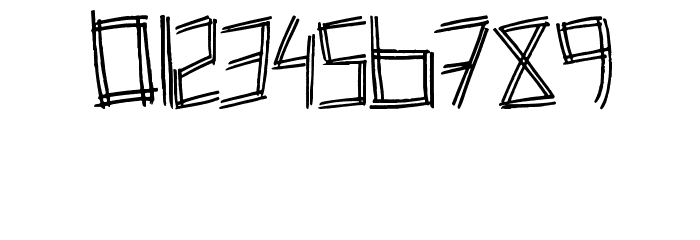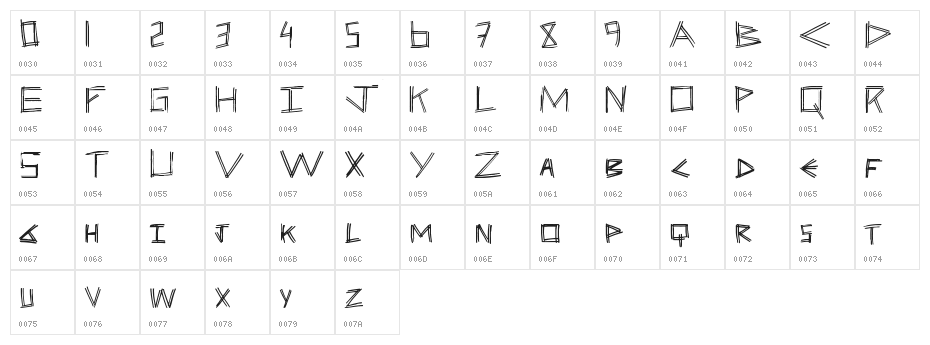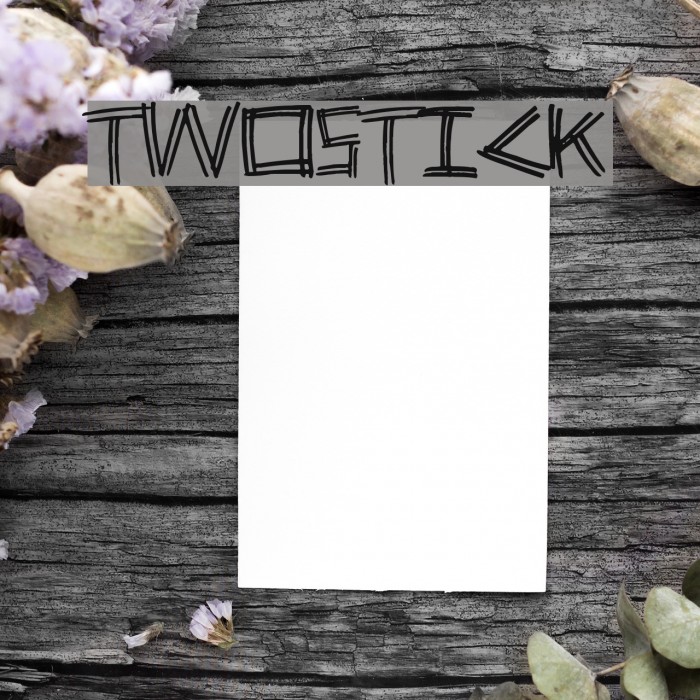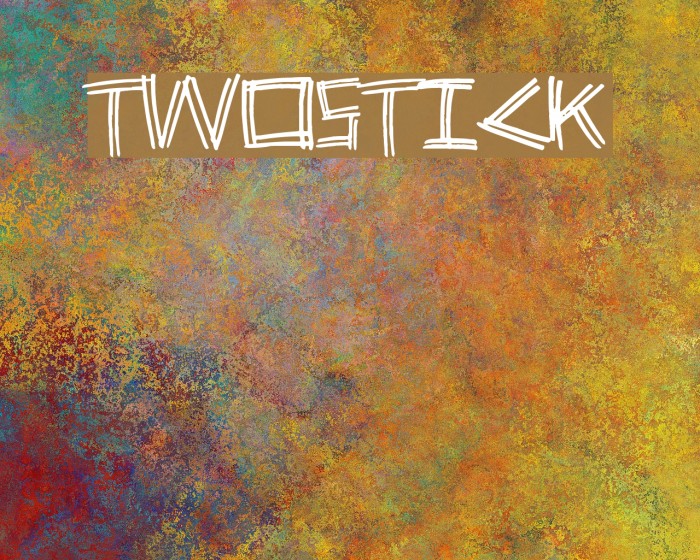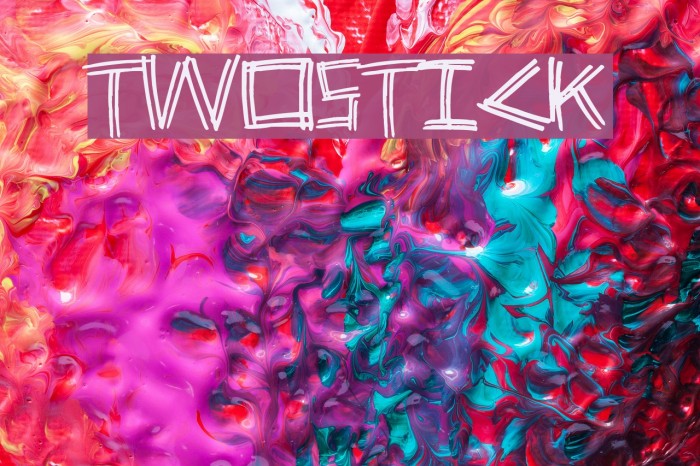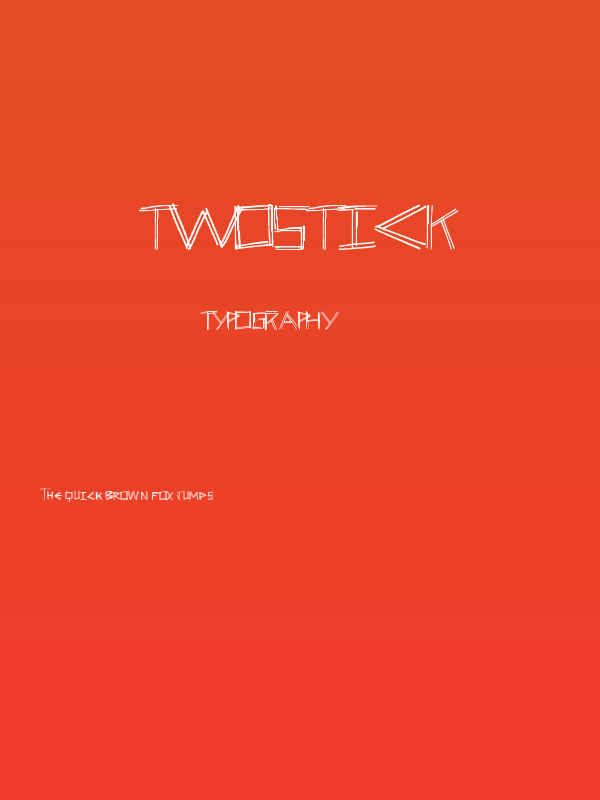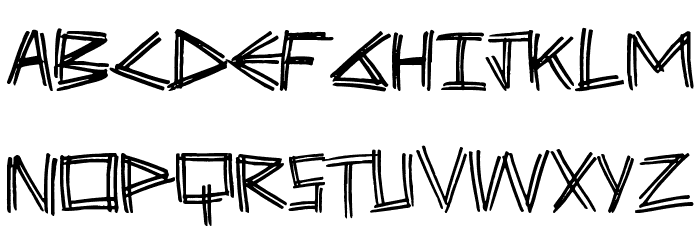
twostick Font
twostick Description
This font exhibits a unique, edgy style with a hand-drawn appearance. The characters are composed of angular, intersecting lines that create a sense of movement and energy. The uppercase and lowercase letters maintain a consistent design, with sharp edges and a slightly chaotic structure. Numbers and special characters follow the same aesthetic, ensuring uniformity across all glyphs. The font's rough, sketch-like quality gives it a raw, artistic feel, making it stand out in any design. Its distinctive look is both modern and rebellious, ideal for projects that require a bold statement.
| Proposed Projects | Album covers, street art-inspired designs, edgy branding, posters, and creative projects requiring a bold, artistic touch. |